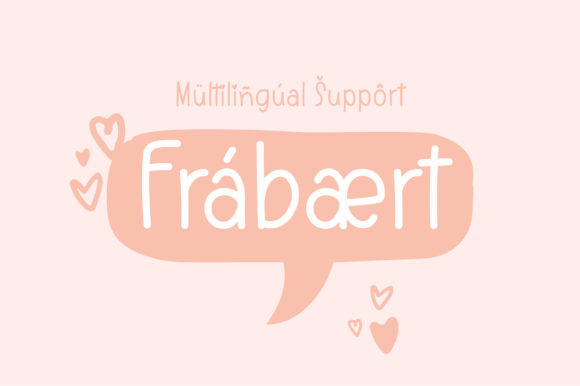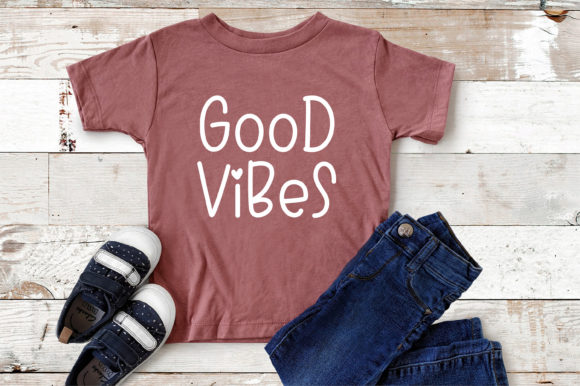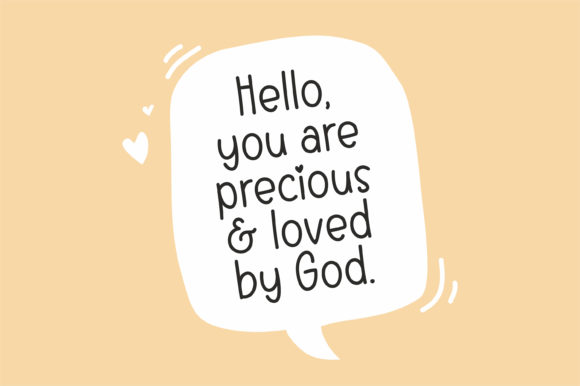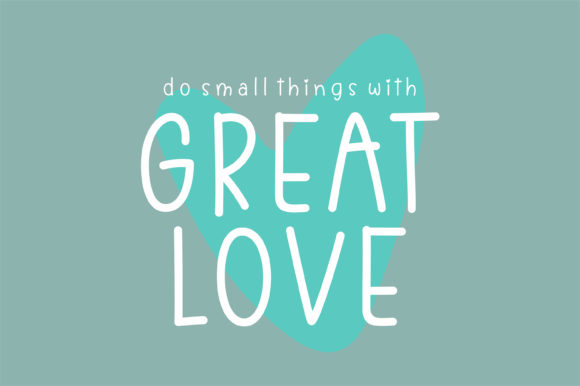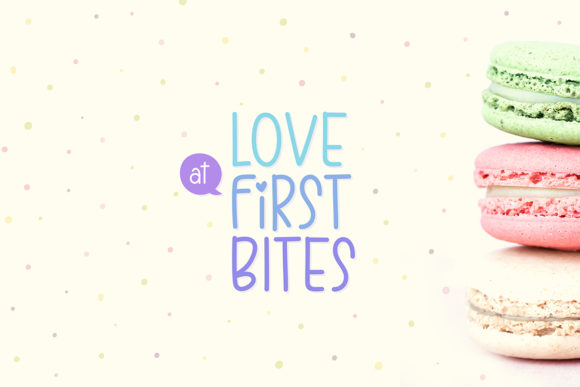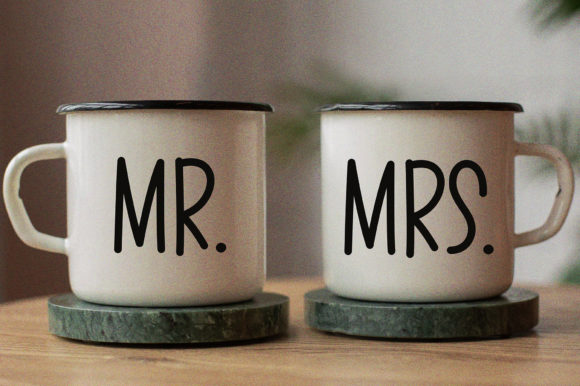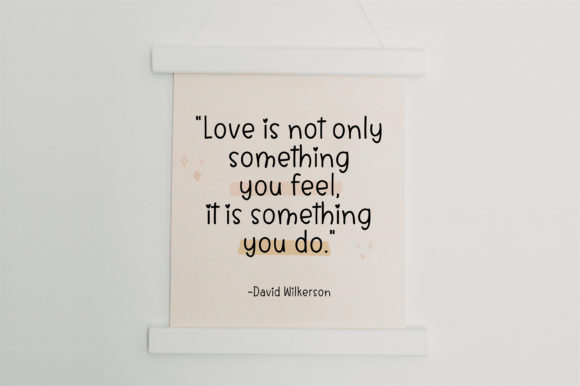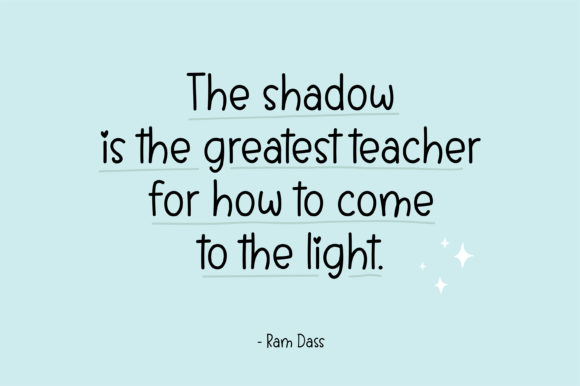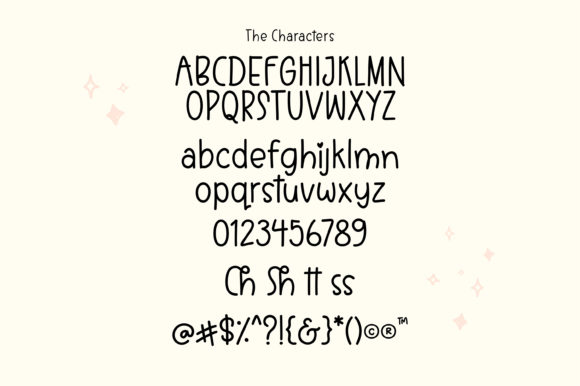
Friency Font
About Friency Font
Friency is a cute, simple and natural handwritten font. It can be added to various informal or casual designs. No matter the topic, this font will be an incredibly asset to your fonts’ library, as it has the potential to elevate any creation.